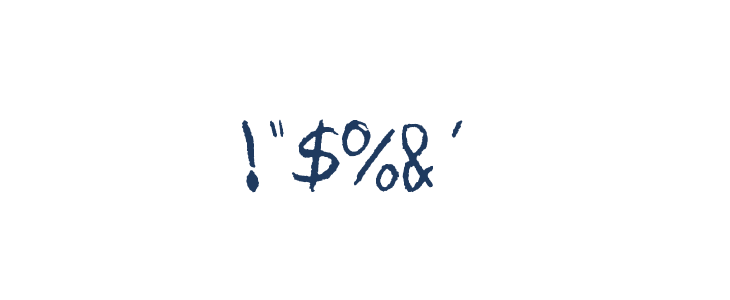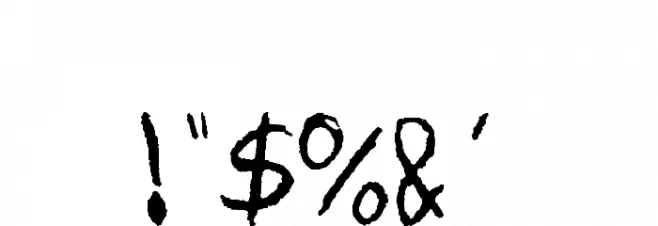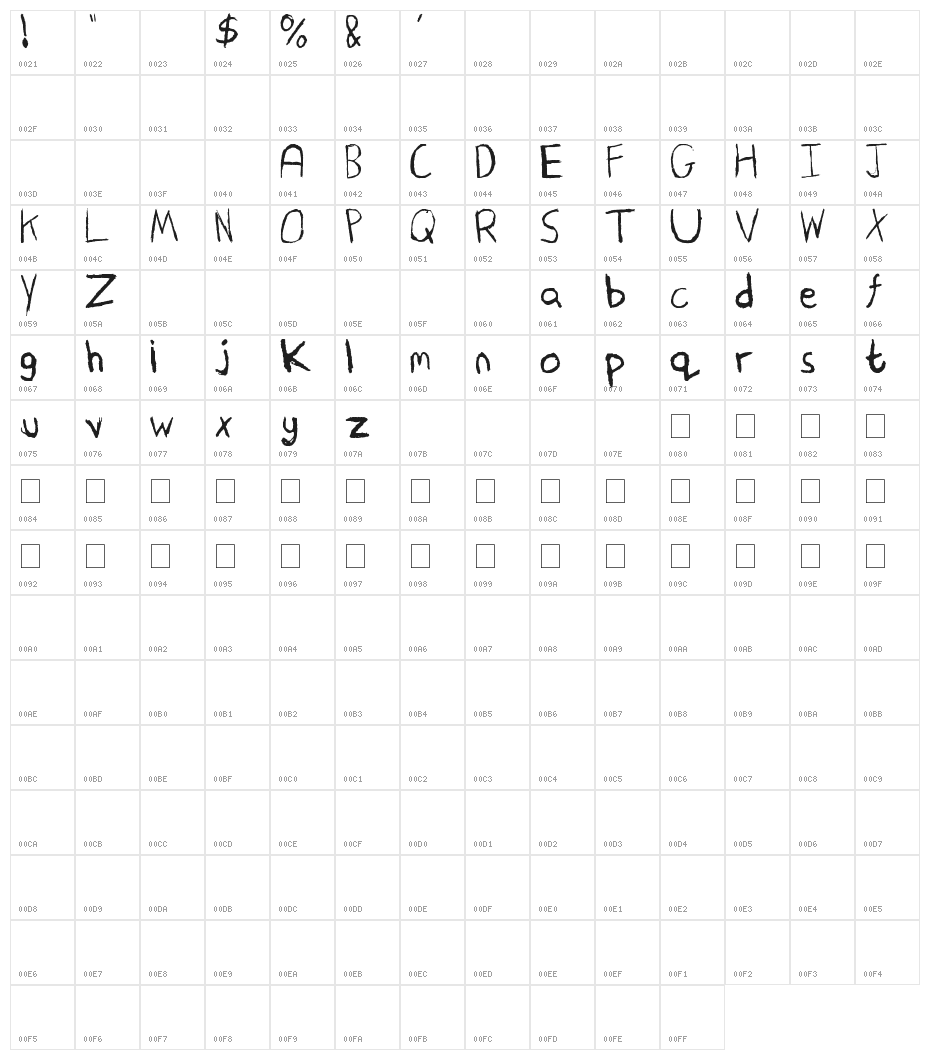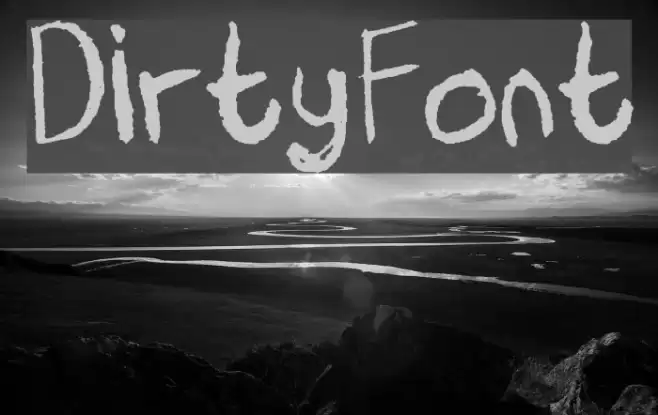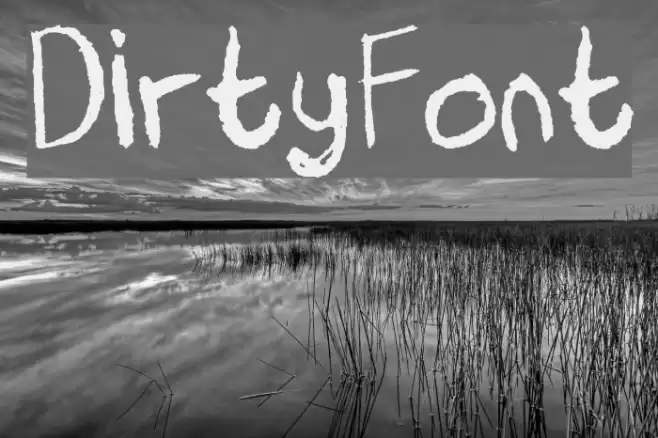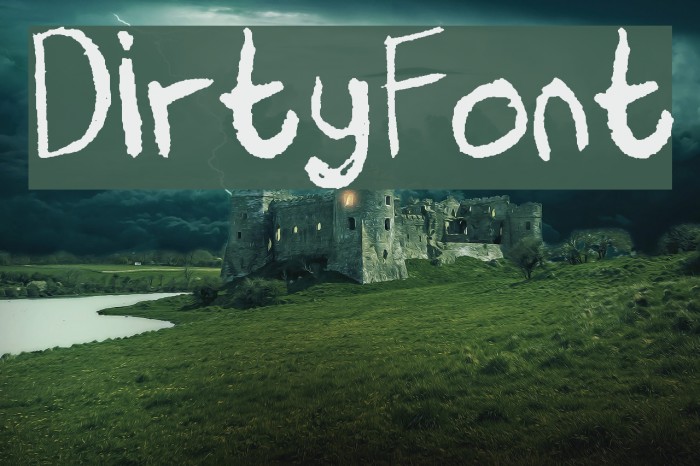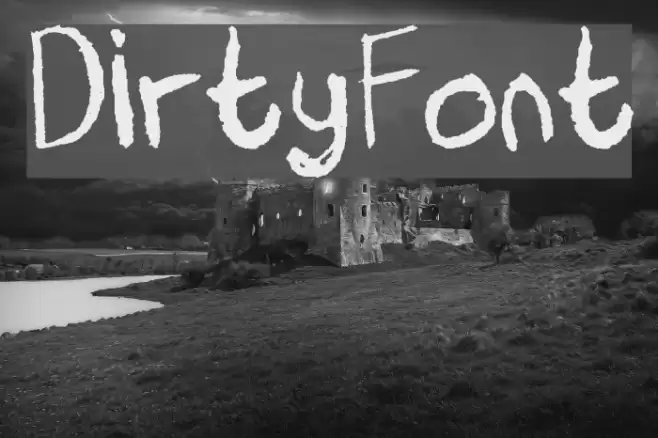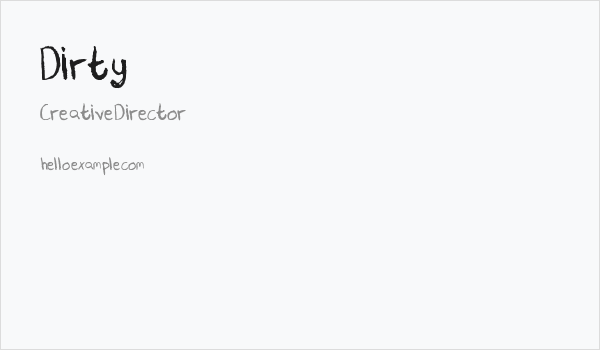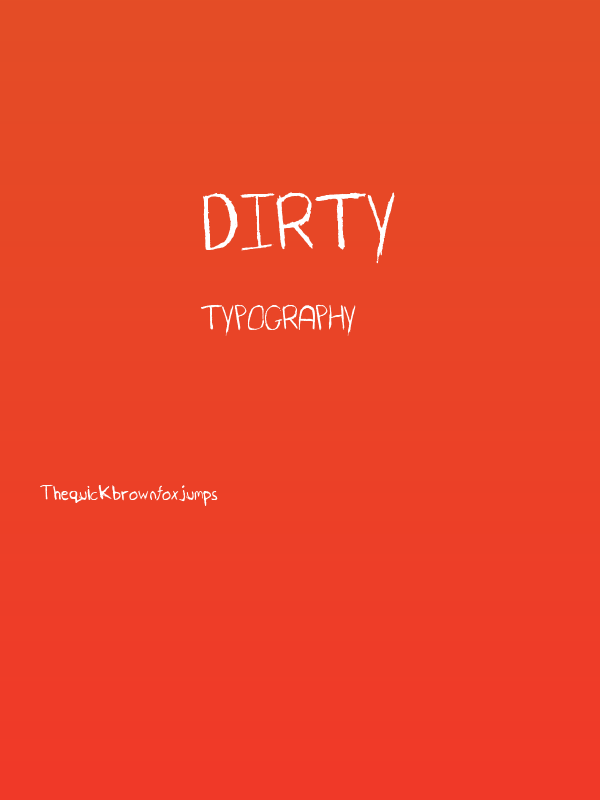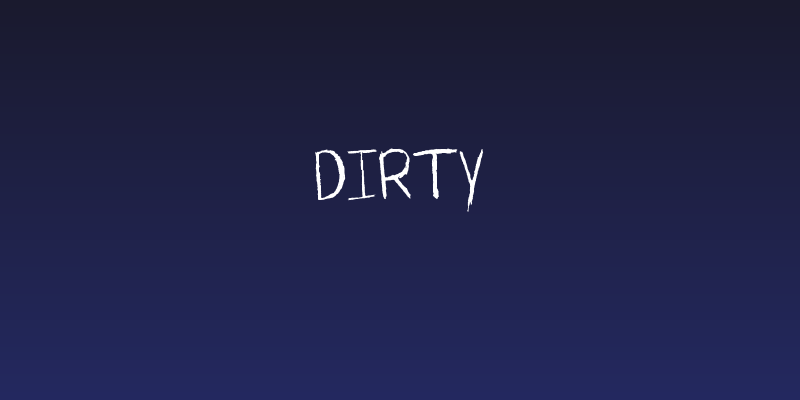
Dirty Font
Dirty Description
This font features a rugged, hand-drawn style with irregular strokes and a slightly distressed appearance. The characters are unevenly weighted, giving it a raw and organic feel. The uppercase and lowercase letters maintain a consistent height, while the special characters add a playful touch. The overall look is reminiscent of graffiti or street art, making it ideal for projects that require a bold, unconventional aesthetic. The font's unique character spacing and varied line thickness contribute to its dynamic and energetic style.
| Proposed Projects | Ideal for street art designs, edgy posters, album covers, and creative branding. |